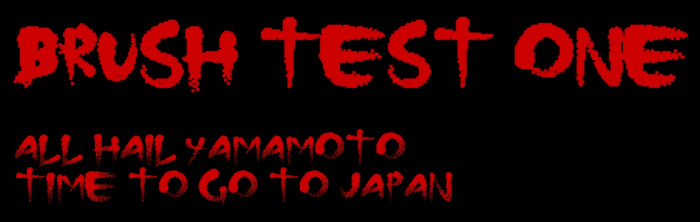
• just a little experiment to test this style and how realistic the effect is.
also an attempt to see if i could make a clone of swiftedstrokes from scratch, without using the clone button. font works better in BIG size.
OK I PROBABLY WONT ADD ANY MORE CHARACTERS BECAUSE THIS ALREADY TOOK TOO LONG
looks good so far
(ok dont try to put more meaning in the samples content, "yamamoto" is nobody in particular, just a random japanese name because its the first that came to mind, its japan because idk the font looks kinda like asia stuff to me)